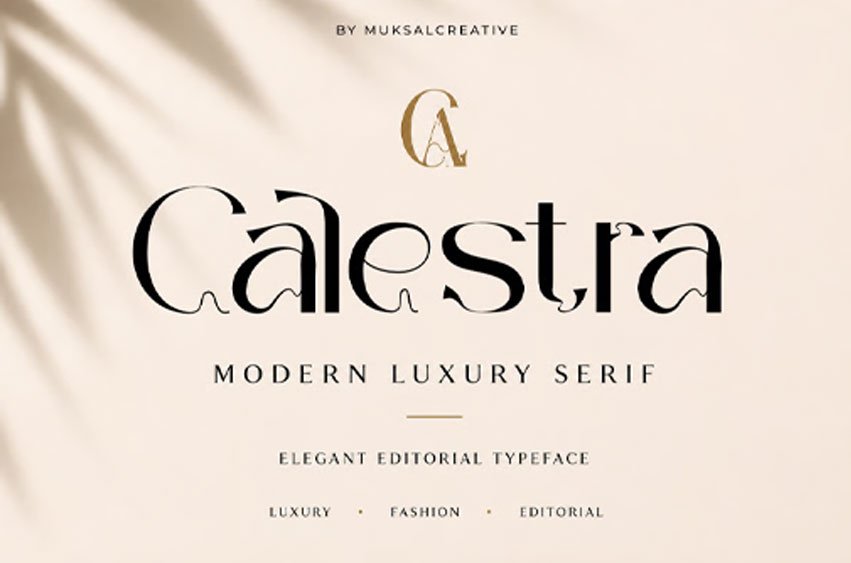
Calestra Font is a modern luxury serif typeface crafted to bring elegance, sophistication, and timeless beauty into your designs. Inspired by high-end fashion editorials, luxury branding, and contemporary aesthetics, Calestra combines refined letterforms with distinctive decorative details that create a truly memorable visual presence.
Featuring graceful high-contrast strokes and carefully designed alternates, Calestra delivers a perfect balance between modern minimalism and artistic expression. Whether used for branding, logos, magazine headlines, packaging, or social media content, this typeface instantly elevates your work with a premium and exclusive feel.
Designed for creatives who value beauty in every detail, Calestra shines across luxury fashion brands, beauty products, jewelry collections, cosmetic packaging, wedding designs, and editorial layouts.